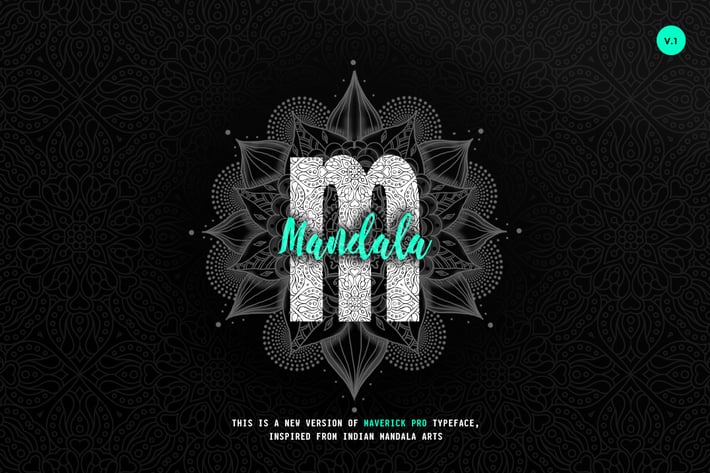
Maverick Mandala - Textured Typeface + WebFont
Maverick Mandala Textured Typeface
Introducing a Brand new Textured Font "Mandala" Based on "Maverick Pro". Mandala is a spiritual and ritual symbol in Hinduism and Buddhism. We have Designed "Maverick Mandla" With beautiful and Traditional Indian Antique Textures.
Maverick Mandala is perfect for branding projects, logo, wedding designs, social media posts, advertisements, product packaging, product designs, photography Brandings, invitation and Typography Designs.